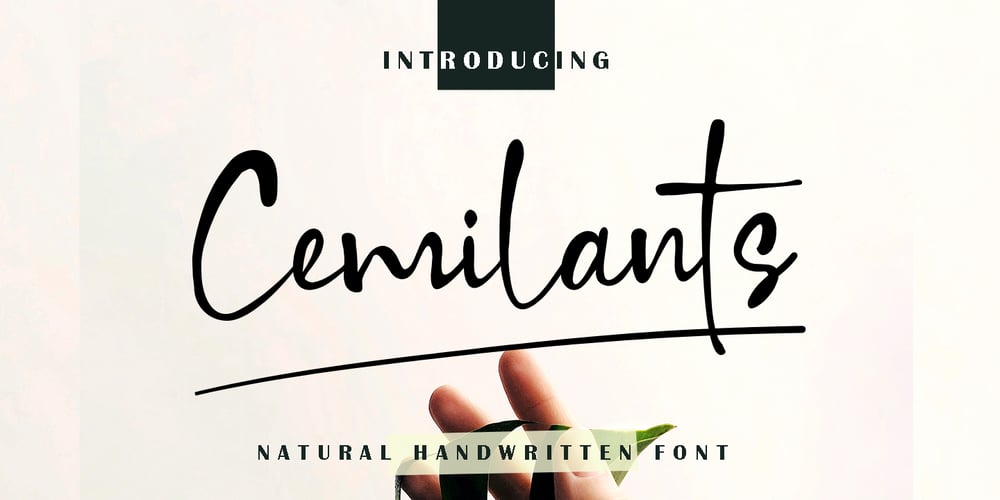
Cemilants Font Family was designed by Nasrullah and published by Sulthan Studio. Cemilants contains 1 styles and family package options. Hi font lovers, we introduce our new product. Freestyle font with original handwritten characters, very extraordinary with a little brush and signaturemakes this font different and more colorful, very suitable for your projects that require writing in ink. This font has two alternate lowercase letters and some strokes underneath.Complete font with upper and lower case letters, numbers, punctuation, alternative letters and also language support of course.Enjoy your creative freedom by adding this font to your font collection.Congratulations on your work, may success always accompany you.